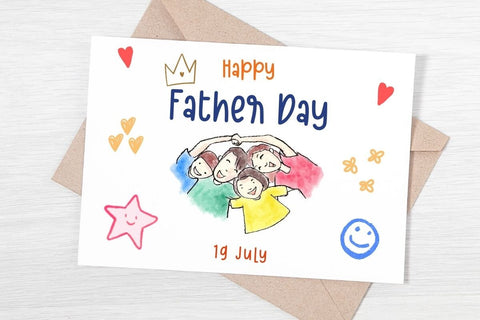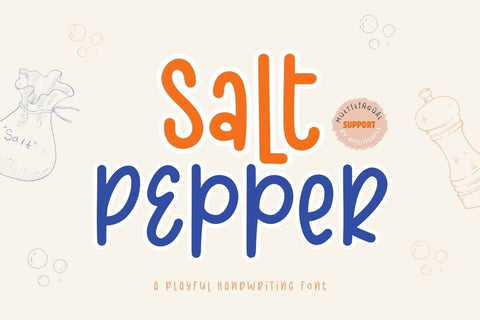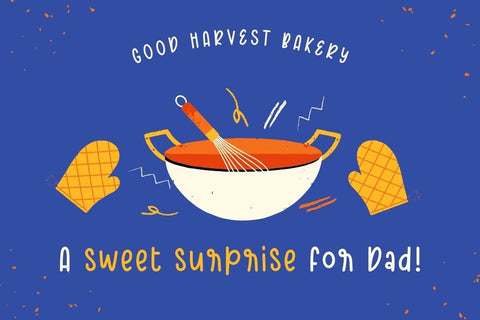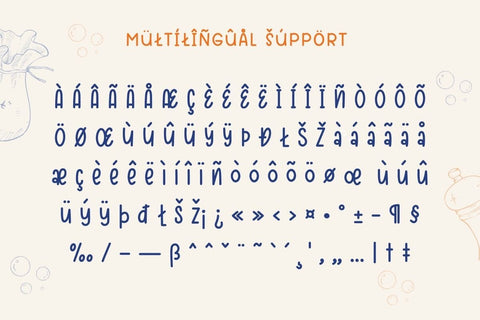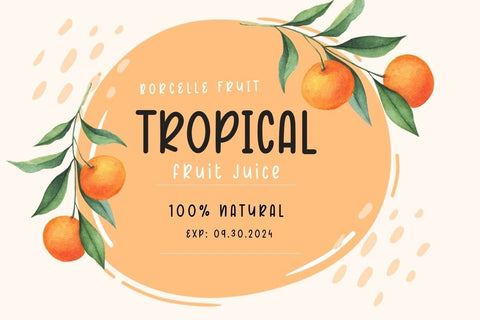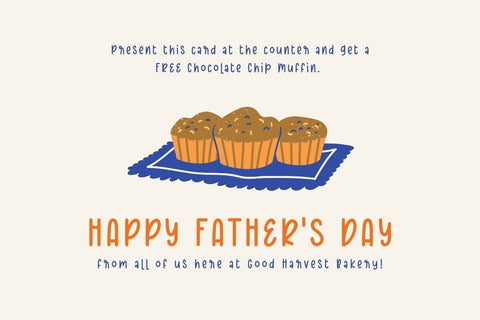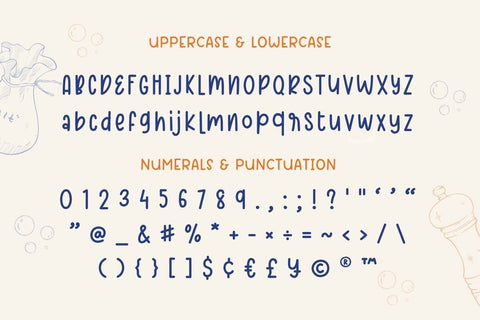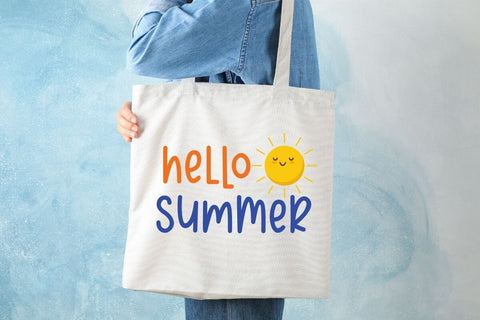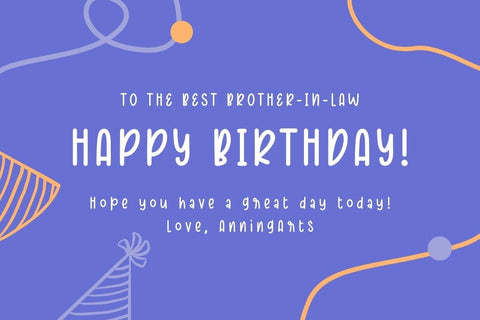
Salt Pepper - Handwriting Font
Salt Pepper is a delightful handwritten font with multilingual support for English, Spanish, French, German, Portuguese, and Italian. It is versatile and can be used for note-taking, diary writing, or creating greeting cards, tote bags, mugs, and more.